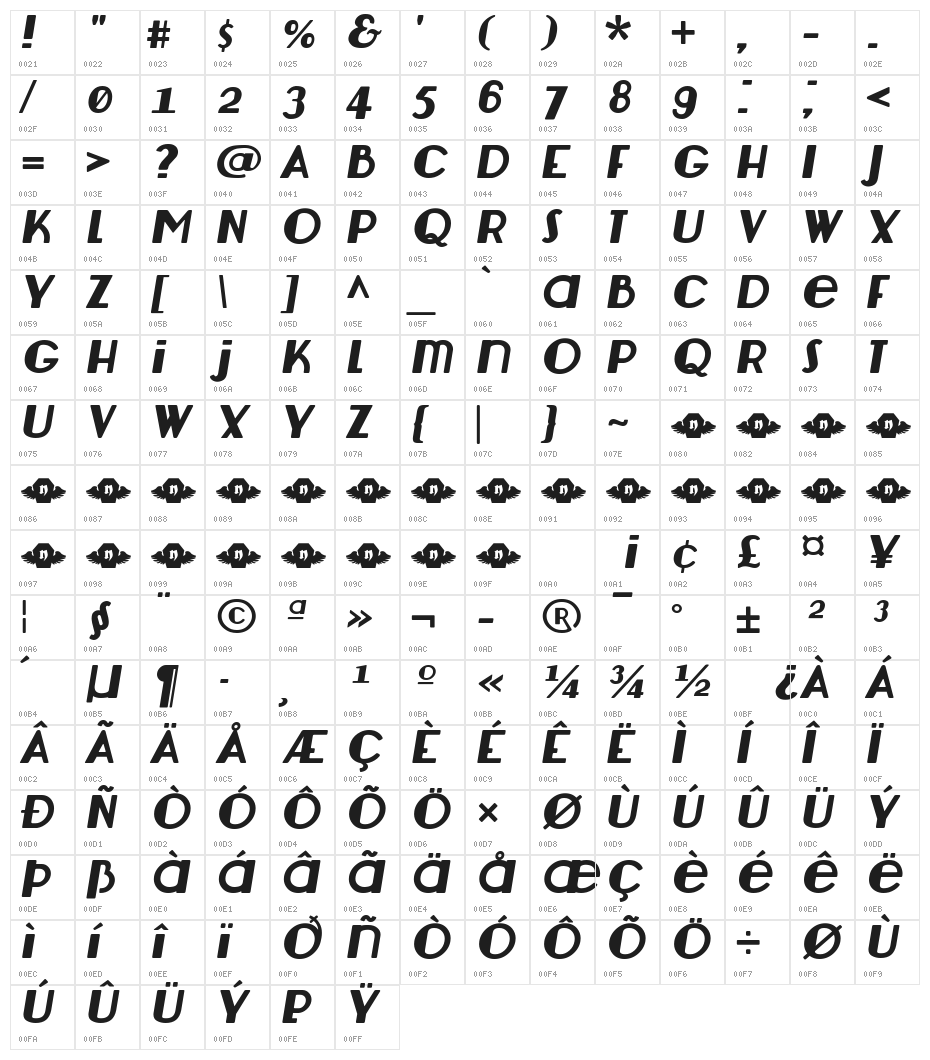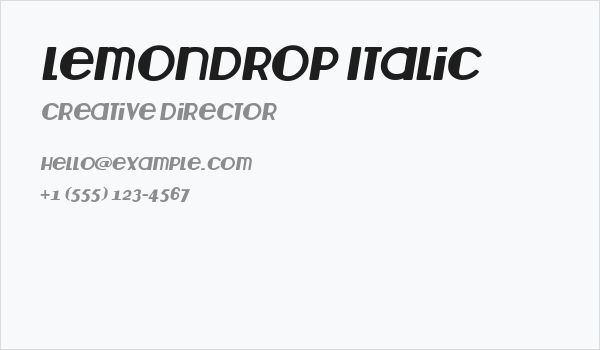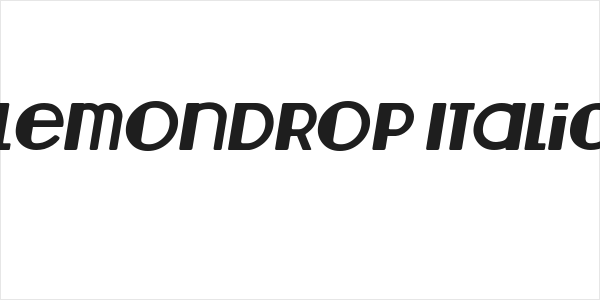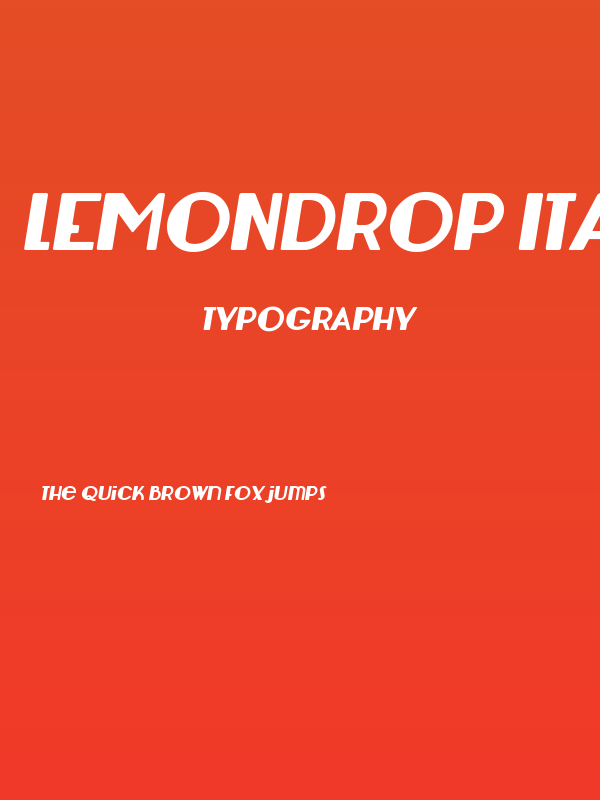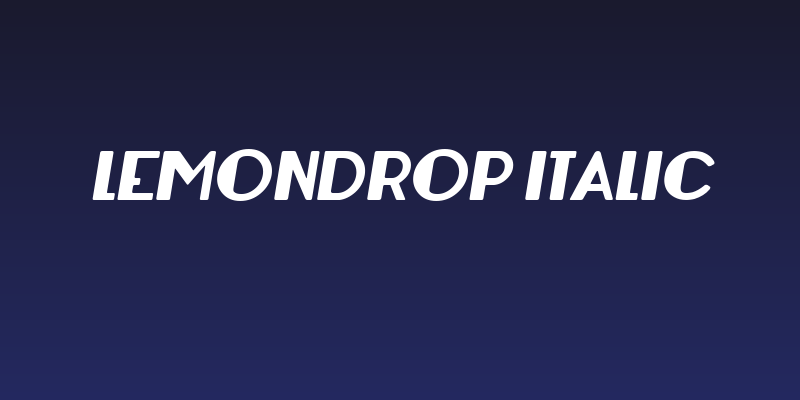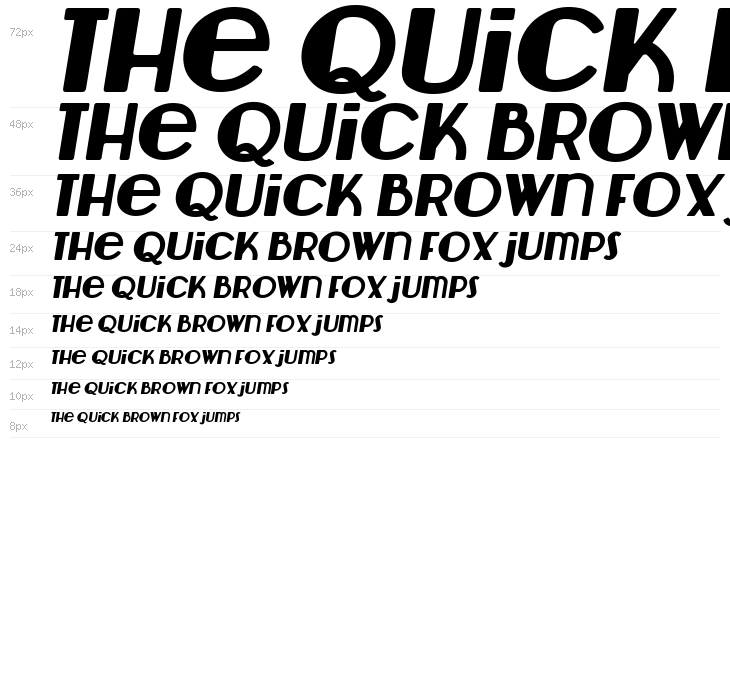
Lemondrop Italic Font
Lemondrop Italic Description
This font exhibits a playful and dynamic style with a distinct italic slant, giving it a sense of movement and energy. The characters are bold and slightly condensed, with a modern flair that makes it stand out. The uppercase and lowercase letters maintain a consistent style, with rounded edges and smooth curves that add to its approachable and friendly appearance. The numerals and special characters are designed to match the overall aesthetic, ensuring a cohesive look across all text elements. The font's unique personality makes it suitable for creative and informal applications.
| Proposed Projects | Ideal for branding, packaging, posters, and any project requiring a lively and engaging typeface. |